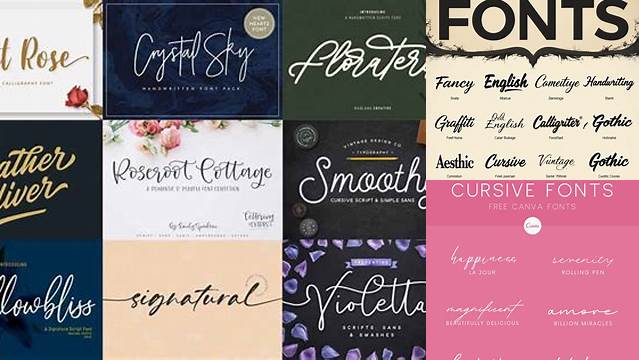
Cool Cursive Fonts: Generate Elegant Text Online
Hey guys! Ever wanted to add a touch of elegance and personality to your projects? Well, you've come to the right place! Let's dive into the wonderful world of cool cursive fonts and how a cursive font generator can be your new best friend. Cursive fonts, with their flowing lines and graceful curves, can transform ordinary text into something extraordinary. Whether you're designing invitations, crafting social media posts, or simply want to express yourself in a unique way, a cursive font generator is the perfect tool to unlock your creative potential. In this article, we'll explore the magic of cursive fonts, how to use a font generator effectively, and where to find the best resources to get started. So, buckle up and let's get cursive!
What Makes Cursive Fonts So Special?
Okay, let's talk about why cursive fonts are such a big deal. It's more than just fancy writing, trust me! Cursive fonts have this incredible ability to evoke emotions and set a specific tone. They're like the secret sauce that can make your message truly stand out. Think about it: a handwritten note feels way more personal than a typed-out email, right? That's the power of cursive! These fonts mimic the fluidity of human handwriting, adding a touch of warmth and authenticity that's hard to replicate with standard typefaces. Using cursive fonts isn't just about aesthetics; it's about creating a connection with your audience. A well-chosen cursive font can convey elegance, sophistication, or even a playful charm, depending on the style you go for. Imagine designing wedding invitations with a delicate, swirling script – instantly, you've set a romantic and refined tone. Or, picture a logo for a boutique bakery using a whimsical cursive font – it adds a touch of homemade goodness and approachability. That's why understanding the nuances of cursive fonts is so crucial. Each style has its own personality, and matching it to the right project can make all the difference. So, next time you're working on a design, consider how a cursive font can elevate your message and leave a lasting impression. The beauty of cursive lies in its ability to bridge the gap between formal and personal, making it a versatile choice for various creative endeavors.
Why Use a Cursive Font Generator?
Alright, so you're digging the cursive vibe, but maybe your own handwriting isn't exactly calligraphy-worthy. No worries, that's where a cursive font generator comes to the rescue! These tools are seriously game-changers, especially if you're not a professional designer. Think of them as your personal font wizard, ready to conjure up beautiful cursive text in seconds. One of the biggest perks of using a font generator is the sheer convenience. Instead of spending hours searching for the perfect font online, you can simply type in your text and preview it in a variety of styles instantly. Most generators offer a wide range of cursive fonts, from classic and elegant scripts to modern and playful styles. This means you can experiment with different looks and find the perfect match for your project without any hassle. Plus, many cursive font generators are super user-friendly, even if you're not tech-savvy. They often come with intuitive interfaces and customization options, allowing you to tweak the font size, color, and other parameters to suit your needs. Another major advantage is the time-saving aspect. Imagine you need to create a custom logo or a set of social media graphics with consistent branding. A cursive font generator can help you generate the text elements quickly and efficiently, freeing up your time to focus on other aspects of your design. And let's not forget the inspiration factor! Browsing through the different font styles in a generator can spark new ideas and help you discover hidden gems you might not have found otherwise. So, whether you're a seasoned designer or just starting out, a cursive font generator is an invaluable tool for adding a touch of elegance and personality to your projects. It's all about making the creative process easier and more enjoyable, and these generators definitely deliver on that promise.
How to Choose the Right Cursive Font
Okay, guys, choosing the right cursive font is like picking the perfect outfit for an occasion – it's gotta match the vibe! You wouldn't wear a ball gown to the gym, right? Same goes for fonts. The font you choose can totally make or break your design, so let's talk about how to nail it. First up, think about the purpose of your project. Are you designing wedding invitations? Go for something elegant and romantic, like a classic script with delicate swirls. Creating a logo for a children's boutique? A playful, whimsical cursive font will be much more fitting. Matching the font to the context is key. Next, consider your target audience. Who are you trying to reach? A sophisticated audience might appreciate a refined, traditional cursive font, while a younger crowd might be drawn to something more modern and edgy. Think about their preferences and what kind of message you want to convey. Readability is another big one. Sure, some cursive fonts look absolutely gorgeous, but if they're too difficult to read, they're not doing their job. Make sure the font is clear and legible, especially for important text like headlines or body copy. You want your message to be understood, not deciphered! Don't be afraid to mix and match fonts, but do it carefully. Pairing a cursive font with a simpler, sans-serif font can create a nice contrast and make your design more visually appealing. Just make sure the fonts complement each other and don't clash. And finally, trust your gut! If a font feels right for your project, go for it. Experiment, play around, and see what works best. There are no hard and fast rules, so have fun with it and let your creativity shine. Choosing the right cursive font is all about finding the perfect balance between aesthetics and functionality, so take your time and make a choice that truly reflects your vision.
Top Cursive Font Generators to Try
Alright, let's get down to the nitty-gritty and talk about some awesome cursive font generators you can start using today! There are tons of options out there, but I've rounded up a few that are definitely worth checking out. First up, we've got Font Generator Online. This one's a classic for a reason – it's super easy to use and offers a wide variety of cursive styles. You can simply type in your text, scroll through the different font options, and copy the one you like. It's perfect for quick and simple text generation. Next, there's Cool Fancy Text Generator. Don't let the name fool you; it's not just for fancy text! This generator has a great selection of cursive fonts, plus it lets you create other cool text effects like bold, italic, and even upside-down text. It's a fun tool for adding some extra flair to your social media posts or designs. If you're looking for something a bit more advanced, check out FontSpace. This website is a treasure trove of free fonts, including tons of gorgeous cursive options. You can browse by category, preview the fonts in different sizes and colors, and even download them to use in your own projects. It's a fantastic resource for finding unique and high-quality fonts. Another great option is LingoJam. This generator is super user-friendly and offers a real-time preview of your text in different cursive styles. You can also customize the font size and color, making it easy to create exactly the look you want. And last but not least, don't forget about Canva. This popular design platform has a built-in text tool that includes a wide range of cursive fonts. Plus, it's a complete design solution, so you can create stunning graphics and visuals all in one place. So, whether you're a beginner or a pro, there's a cursive font generator out there that's perfect for you. Explore these options, have some fun, and let your creativity flow!
Tips for Using Cursive Fonts Effectively
Okay, guys, you've got your cursive font and you're ready to roll, but hold up! Let's talk about how to use these beauties effectively. Just slapping a cursive font on everything won't magically make your designs amazing. It's all about finesse and knowing the tricks of the trade. First and foremost, remember the golden rule of readability. I know I've said it before, but it's worth repeating: if your text is hard to read, it's not doing its job. Choose a cursive font that's clear and legible, especially for important information like headings or body text. Avoid overly ornate or swirly fonts that can strain the eyes. Next up, consider the hierarchy of your design. Cursive fonts are great for adding emphasis and personality, but they shouldn't be used for everything. Use them sparingly, like for headings, quotes, or short phrases. For longer blocks of text, stick to a simpler, more readable font like a sans-serif or serif. This creates a visual hierarchy and makes your design easier to digest. Pairing fonts is another art form in itself. A well-chosen font pairing can elevate your design, while a bad one can make it look messy and amateurish. Try pairing a cursive font with a clean, minimalist font for a balanced look. For example, a delicate cursive script can look stunning alongside a simple sans-serif font like Helvetica or Arial. Kerning and letter-spacing are your secret weapons for making cursive fonts look their best. Pay attention to the spacing between letters and adjust it as needed to create a smooth, even flow. Some cursive fonts have tricky letter combinations, so a little tweaking can go a long way. Don't be afraid to experiment with color. Cursive fonts can look particularly striking in bold colors or contrasting shades. Just make sure the color you choose complements the overall design and doesn't clash with other elements. And finally, remember to keep it consistent. If you're using a cursive font for a specific purpose, like headings, stick to it throughout your design. Consistency is key for creating a polished and professional look. So, there you have it – some top tips for using cursive fonts effectively. By keeping these guidelines in mind, you can harness the power of cursive to create designs that are both beautiful and functional.
Unleash Your Inner Calligrapher!
So, guys, we've covered a lot about cool cursive fonts and how to use them effectively. From understanding the magic of cursive to choosing the right font generator and mastering the art of font pairing, you're now equipped to unleash your inner calligrapher! Remember, cursive fonts are more than just pretty letters; they're a powerful tool for adding personality, emotion, and a touch of elegance to your projects. Whether you're designing wedding invitations, creating a brand identity, or simply want to jazz up your social media posts, a well-chosen cursive font can make all the difference. Don't be afraid to experiment with different styles, explore the vast world of font generators, and let your creativity flow. The possibilities are endless! And most importantly, have fun with it! Designing with cursive fonts should be an enjoyable process, so embrace the challenge and let your imagination run wild. With a little practice and the right resources, you'll be creating stunning designs that truly capture your unique style. So go ahead, dive into the world of cursive fonts, and let your creativity shine! Who knows, you might just discover a new passion for typography and design. The world is your canvas, and cursive fonts are your brush – now go create something amazing!